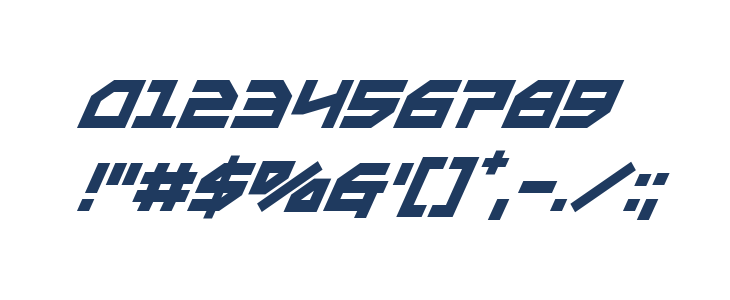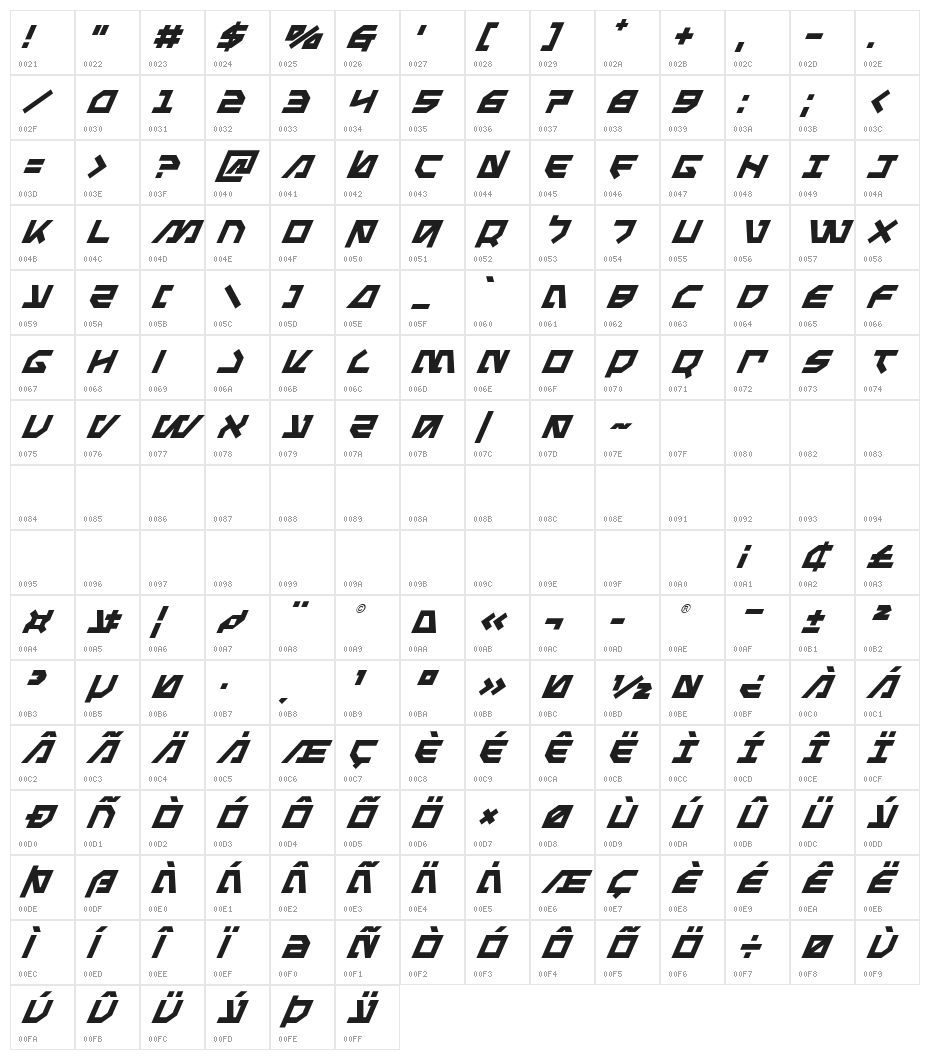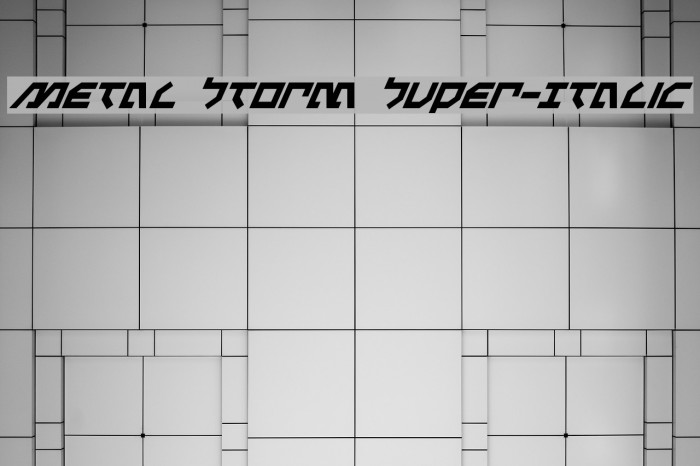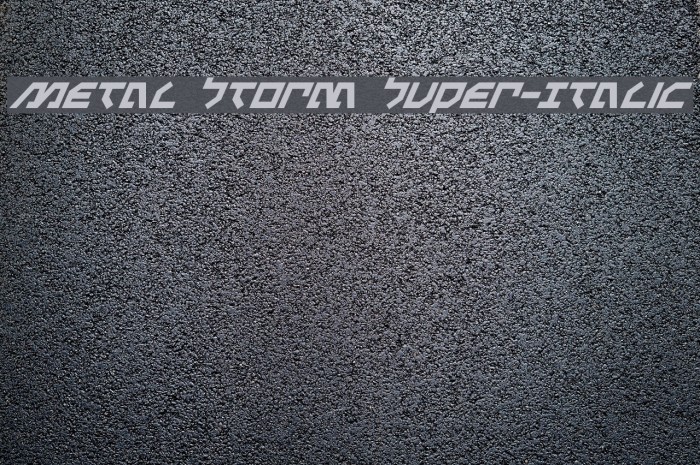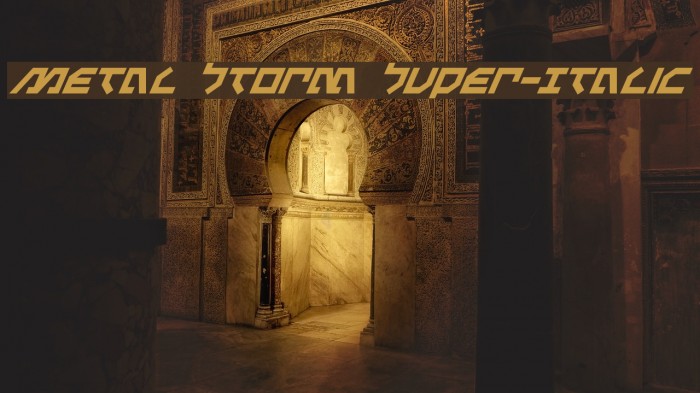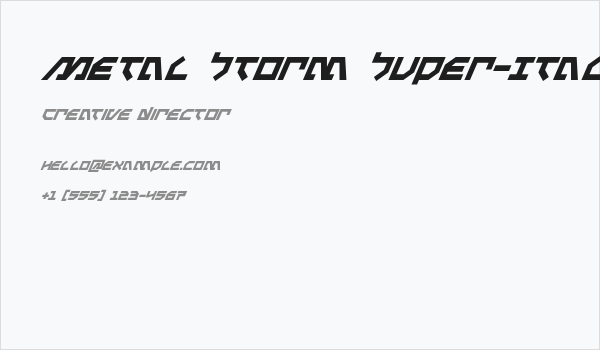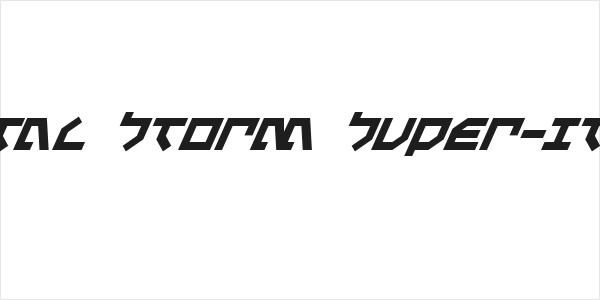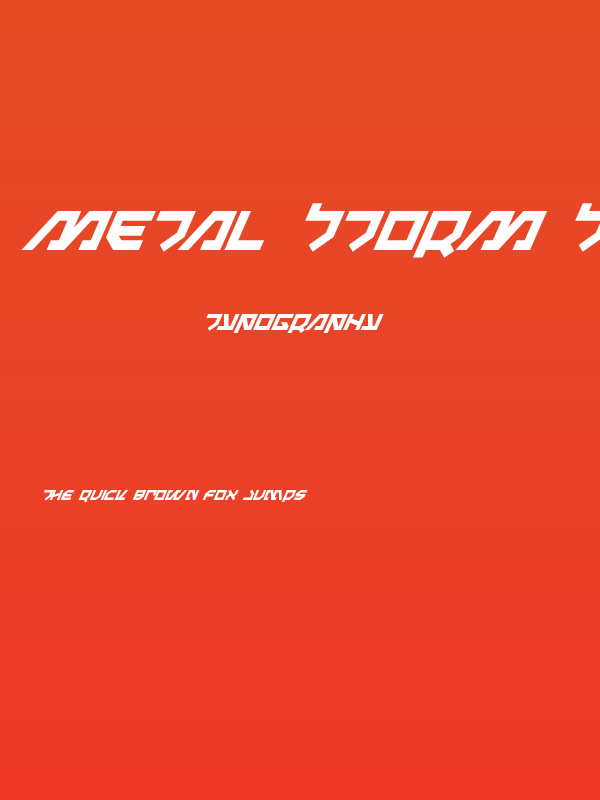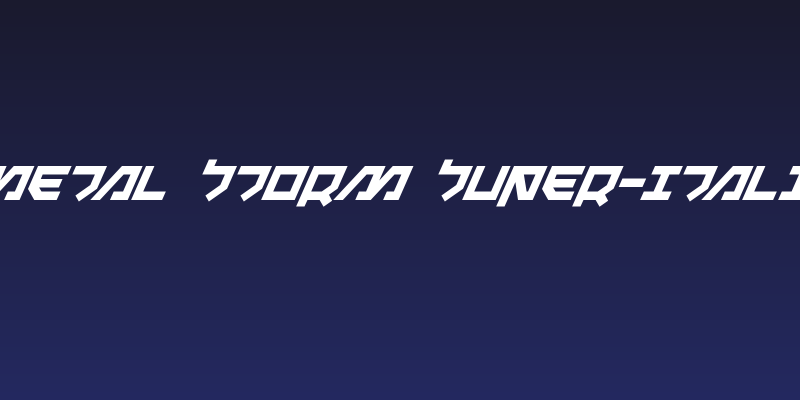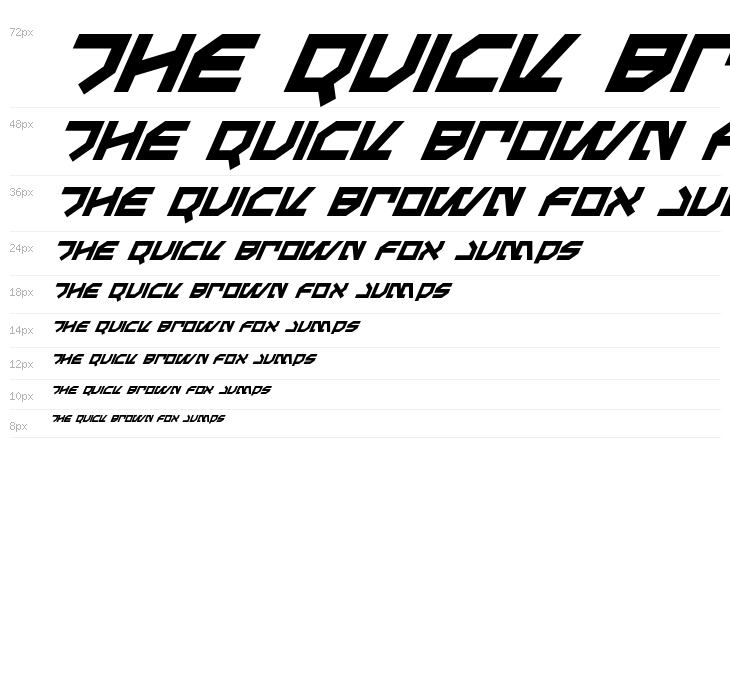
Metal Storm Super-Italic Font
Metal Storm Super-Italic Description
This font features a bold, angular design with a futuristic and aggressive aesthetic. The characters are sharply cut with a distinct slant, giving an italicized appearance that enhances its dynamic feel. The uppercase and lowercase letters maintain a consistent style, with geometric shapes and sharp edges that convey a sense of speed and modernity. The numbers and special characters follow the same design principles, ensuring uniformity across all glyphs. This font is ideal for projects that require a strong, impactful presence.
| Proposed Projects | Ideal for video game titles, sci-fi movie posters, sports branding, and tech-related logos. |